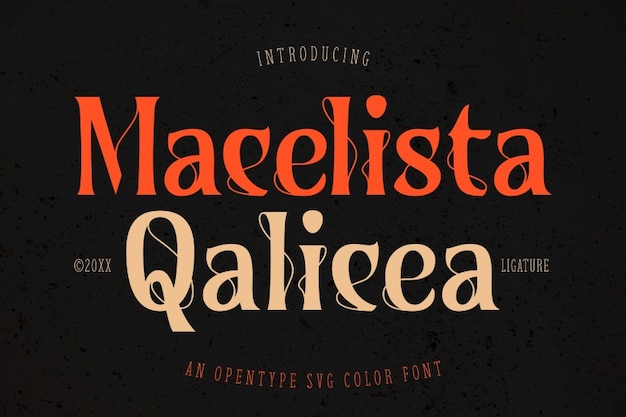
Macelista Qalicea is a high-contrast serif with extended elegance. With fine serifs and delicate curves, it’s built for magazine headlines, beauty brands, or anything that needs a hint of sophistication and drama.